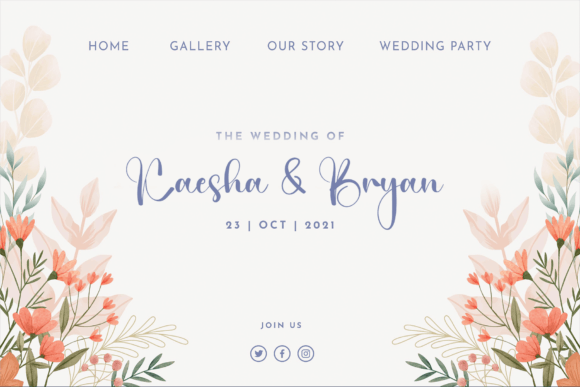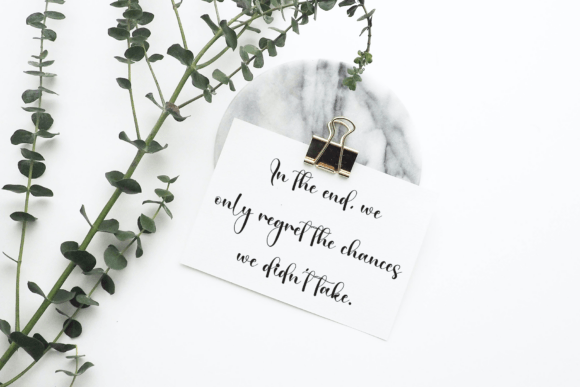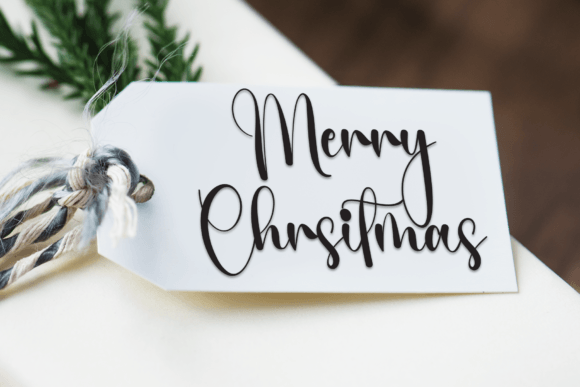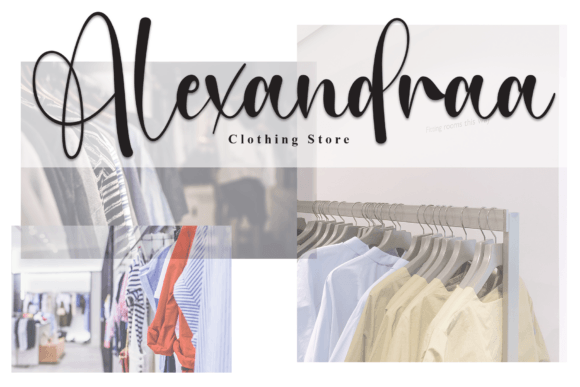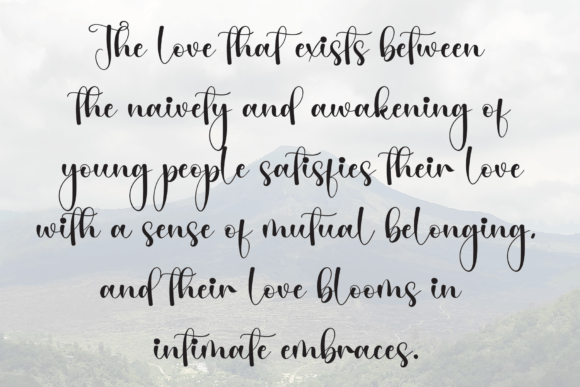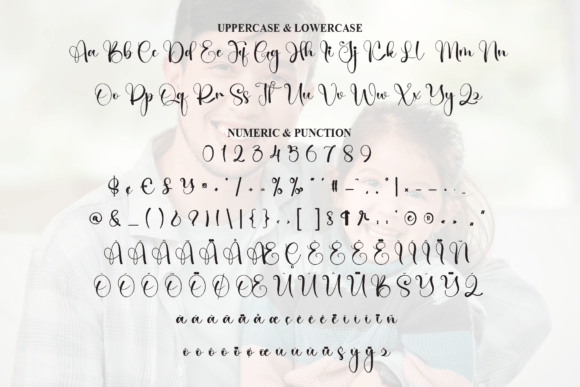
Discover the Charm of Father Font: A Handwritten Typeface for Personal and Creative Projects
In the world of typography, there’s a font for every occasion and style. For those looking to add a touch of warmth and personality to their text, Father Font is an excellent choice. This charming handwritten typeface mimics natural, casual writing, making it perfect for personal notes, invitations, and creative projects. With its smooth curves and friendly letterforms, Father Font brings a sense of approachability and heart to any text.
The Characteristics of Father Font
Father Font is designed to replicate the fluidity and imperfections of handwriting. Its smooth curves and varying line widths give it a natural, organic feel that’s hard to find in digital fonts. The letterforms are friendly and approachable, making the font suitable for a wide range of applications, from personal correspondence to creative projects.
One of the standout features of Father Font is its ability to convey emotion and personality. The font’s warm and inviting tone makes it perfect for:
- Personal notes and letters
- Invitations and event announcements
- Creative projects, such as scrapbooking and journaling
- Branding and packaging for small businesses and entrepreneurs
The Benefits of Using Father Font
So, why choose Father Font for your next project? Here are just a few benefits of using this charming handwritten typeface:
- Warm and inviting tone: Father Font adds a touch of warmth and personality to your text, making it feel more approachable and heartfelt.
- Versatility: The font is suitable for a wide range of applications, from personal projects to commercial use.
- Ease of use: Father Font is easy to read and understand, making it perfect for body text and headings.
- Unique and distinctive: The font’s handmade feel sets it apart from more traditional typefaces, giving your text a unique and distinctive look.
Tips for Using Father Font Effectively
To get the most out of Father Font, here are a few tips to keep in mind:
- Use it for emphasis: Father Font is perfect for adding emphasis to headings, titles, and key phrases.
- Mix it with other fonts: Combine Father Font with other typefaces to create visual interest and contrast.
- Experiment with colors: The font looks great in a range of colors, from bold and bright to soft and pastel.
- Keep it simple: Don’t be afraid to keep things simple and use Father Font as a standalone typeface.
Who Can Benefit from Father Font?
Father Font is a versatile typeface that can be used by a wide range of designers, crafters, and entrepreneurs. Here are just a few examples:
- Graphic designers: Father Font is perfect for creating invitations, announcements, and other printed materials.
- Scrapbookers and journalers: The font’s handmade feel makes it a great choice for scrapbooking and journaling projects.
- Small business owners: Father Font can be used for branding, packaging, and marketing materials.
- Crafters and artists: The font’s unique and distinctive look makes it perfect for creative projects, such as hand-lettering and illustration.
In conclusion, Father Font is a charming handwritten typeface that’s perfect for adding a touch of warmth and personality to your text. With its smooth curves and friendly letterforms, this font is suitable for a wide range of applications, from personal projects to commercial use. Whether you’re a designer, crafter, or entrepreneur, Father Font is a great choice for anyone looking to add a unique and distinctive touch to their text.